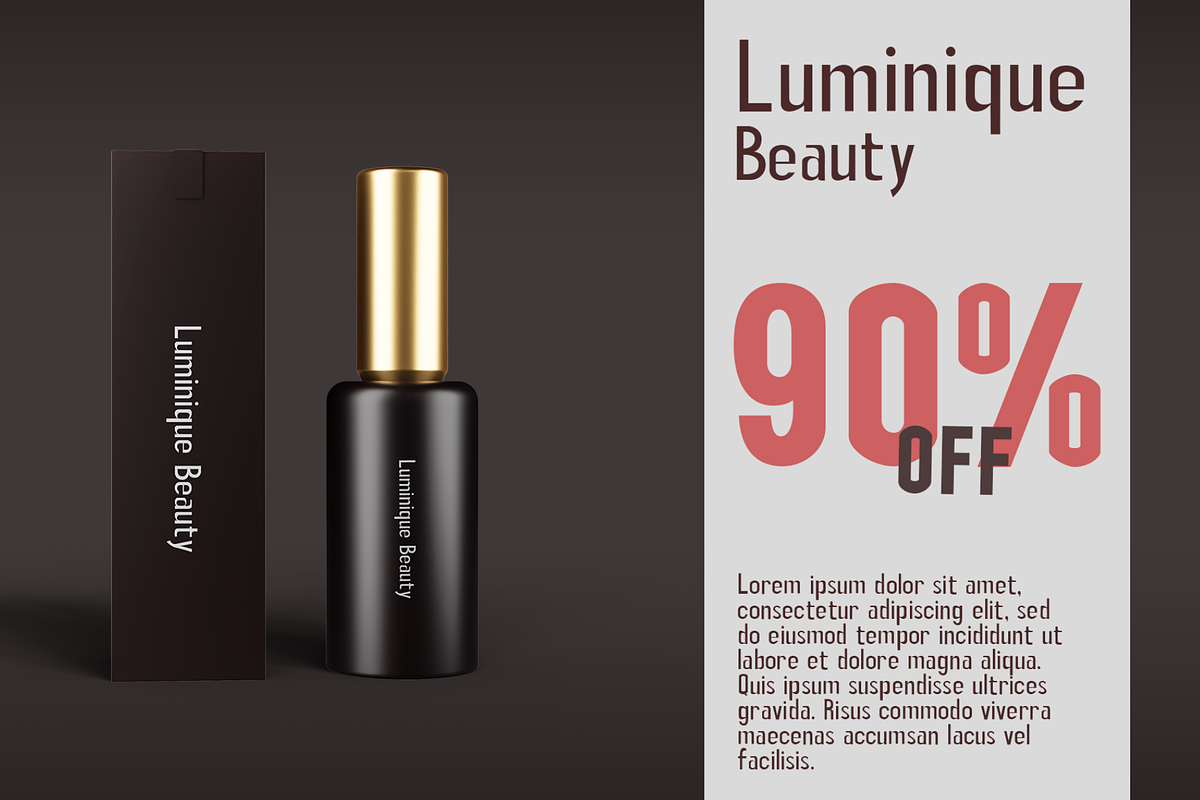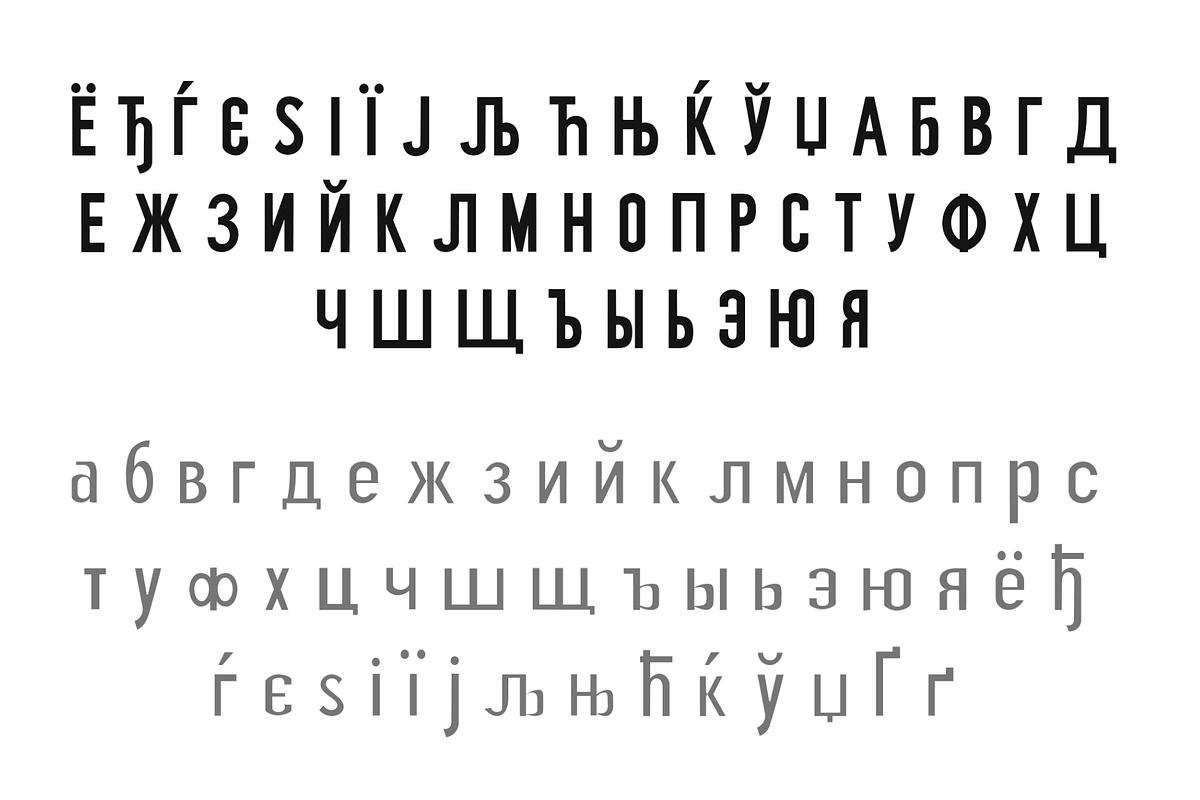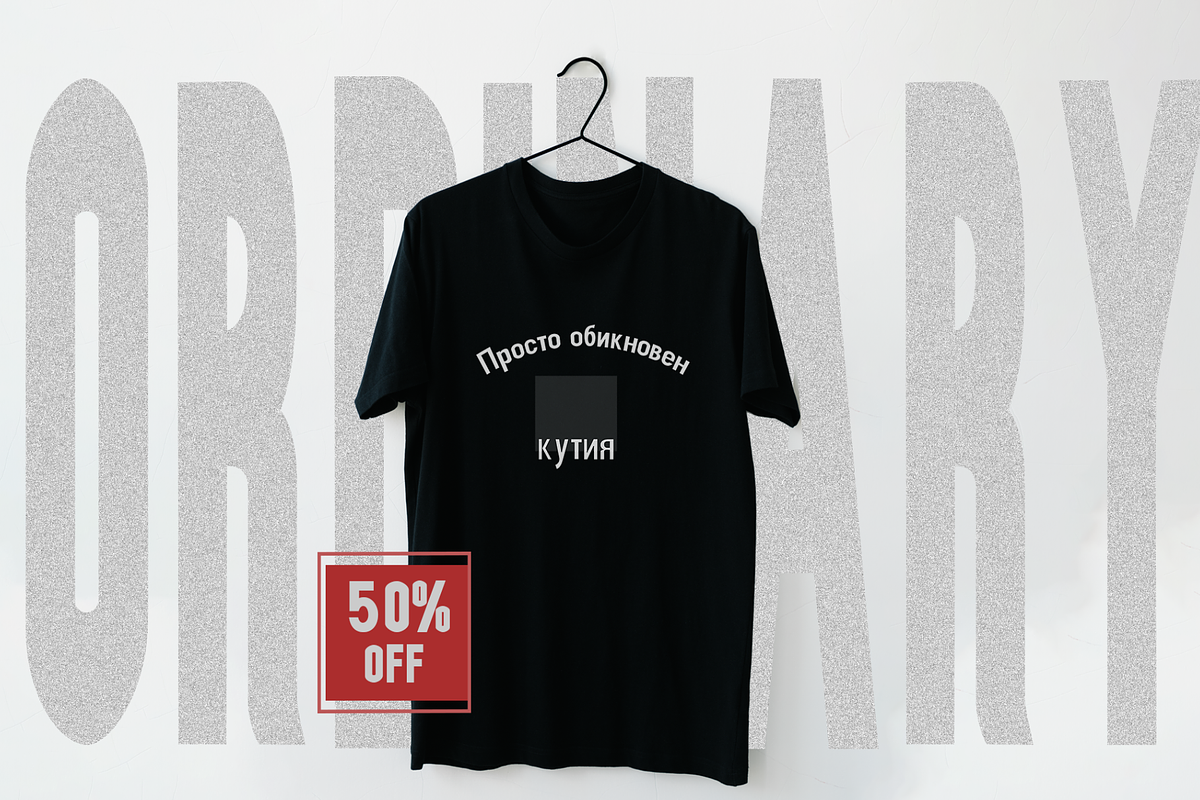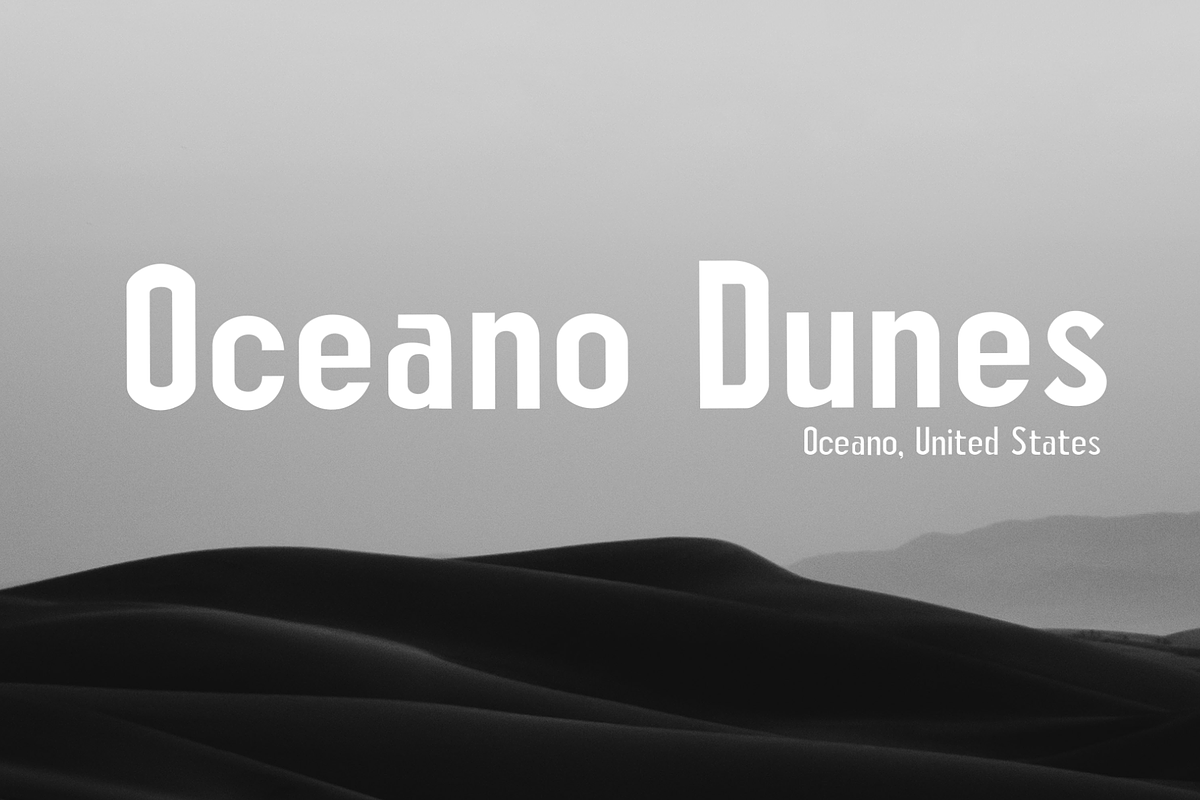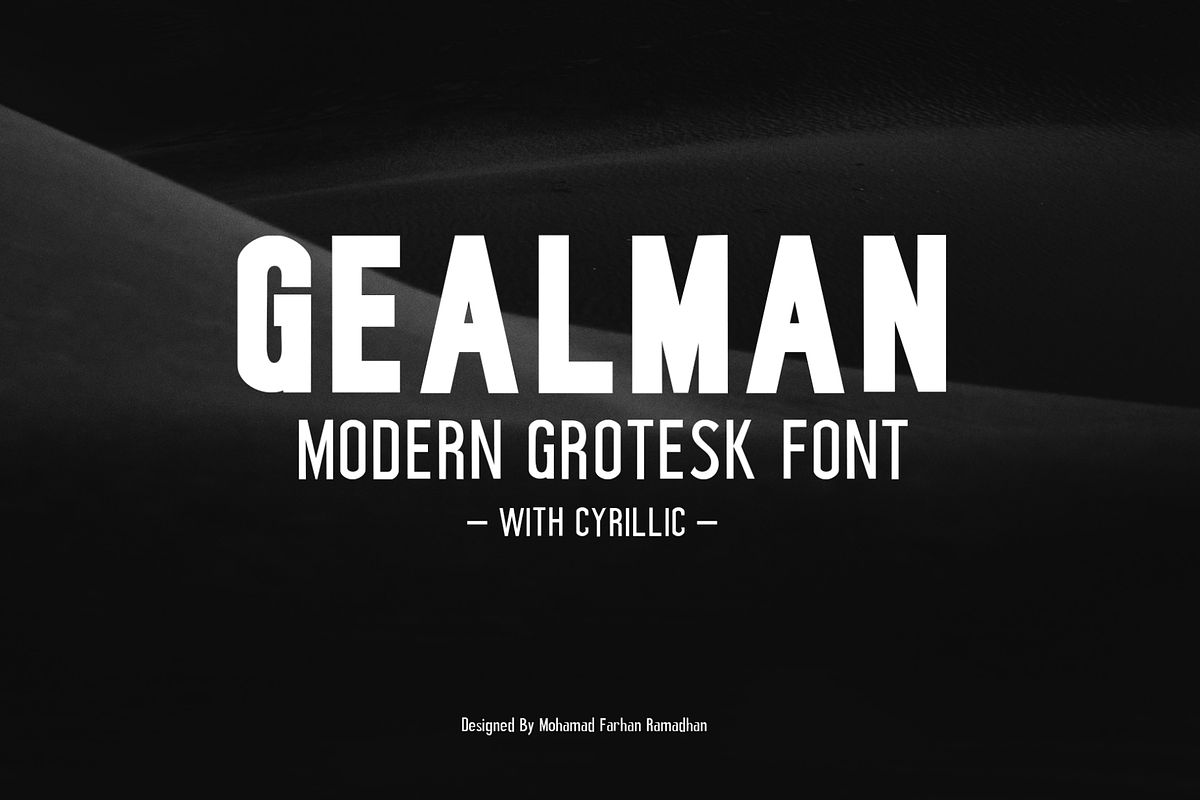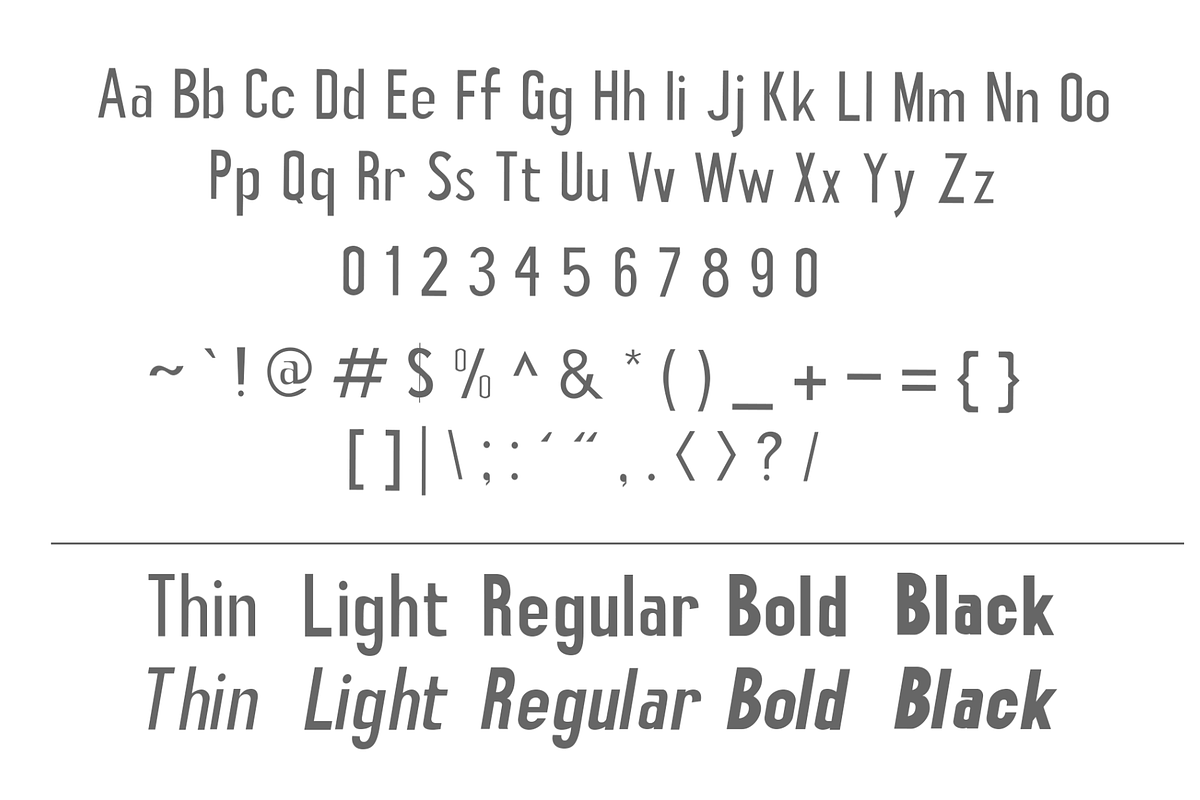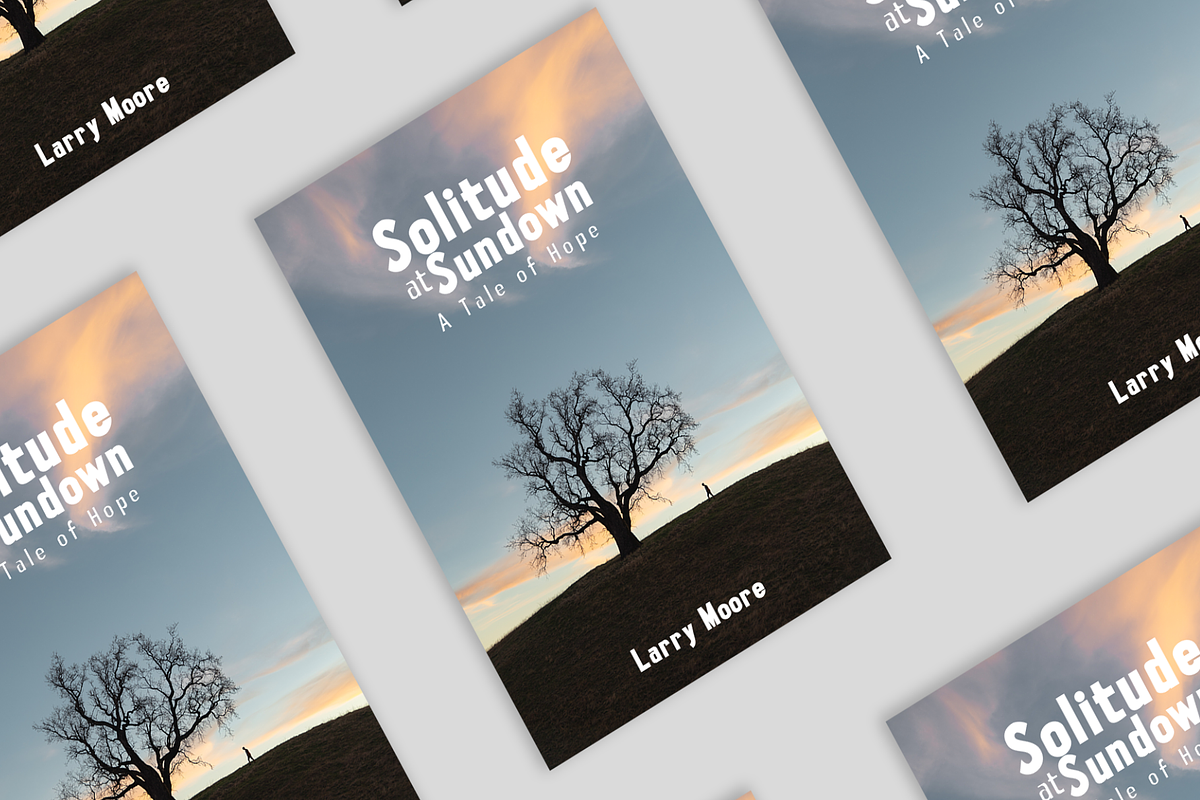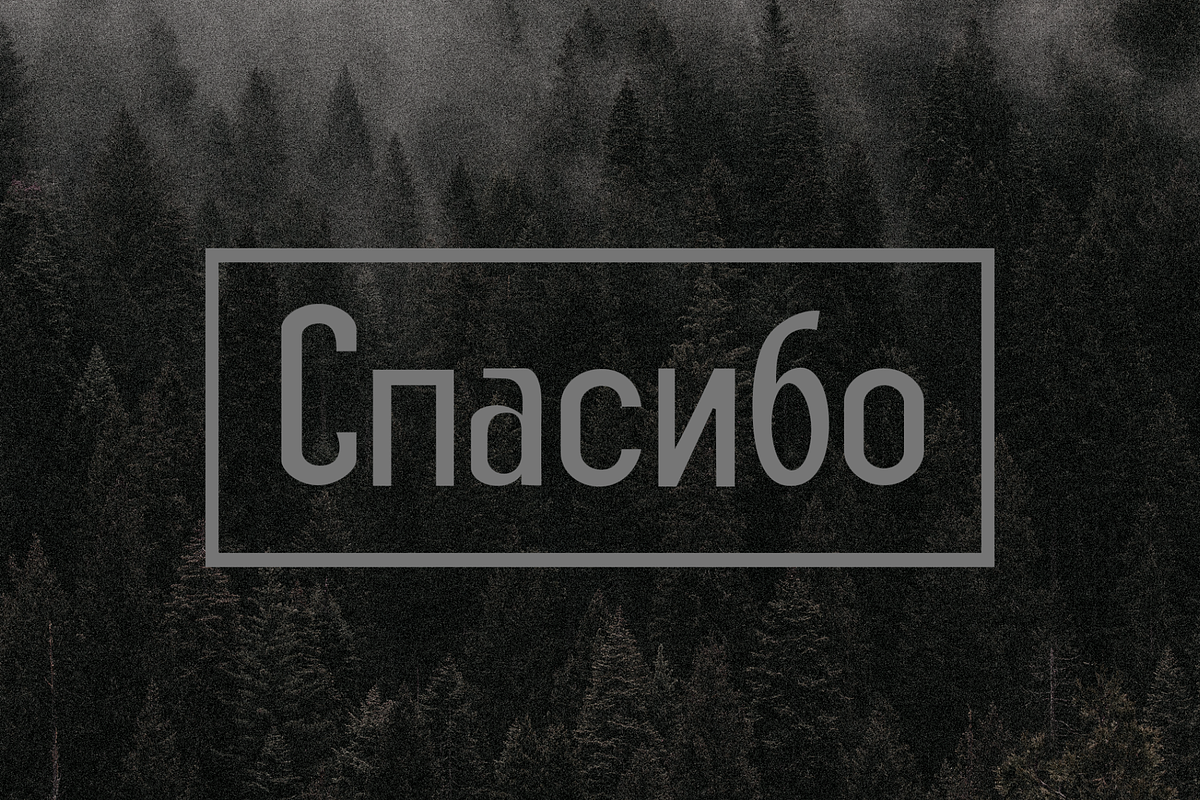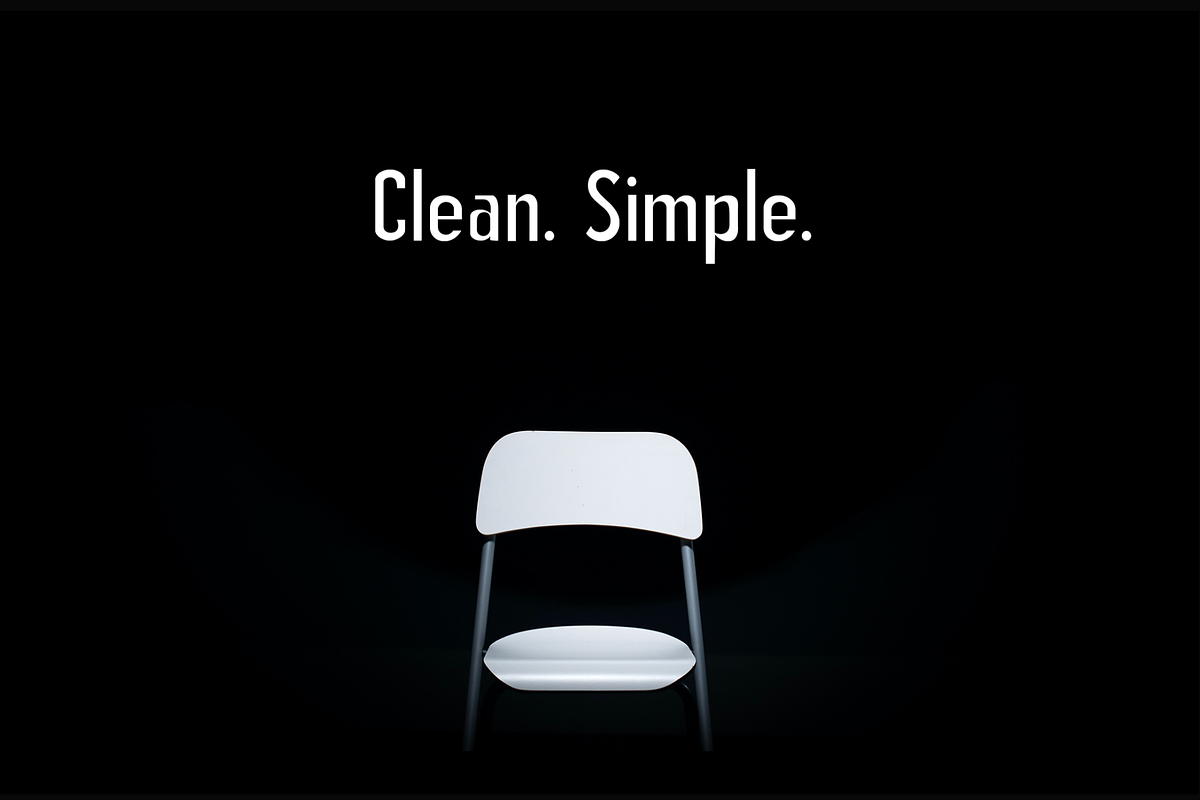
Gealman Modern Groteska font
Gealman is a Grotesk font that stands out for its simplicity, cleanliness, and rigidity. It delivers a modern look and a touch of elegance to any design project, making it highly versatile. Gealman is great for posters, marketing materials, logotypes, headlines, and more. It pairs perfectly with script, blackletter, stylized, and other fonts.
Gealman offers a range of functional aspects, including various styles and character sets. It features a robust character set that supports multiple languages, making it an excellent choice for global branding projects.
The design concept behind Gealman was to create a timeless typeface that is both contemporary and classic. The font's sleek, clean lines and geometric shapes give it a modern feel, while its classic proportions provide a timeless elegance.
Gealman is unique because it combines simplicity with elegance, making it perfect for a wide range of design applications. Whether you're creating a logotype or designing a poster, Gealman is a versatile and reliable choice.
Gealman is not based on a historical design or a revival, but it draws inspiration from classic geometric sans-serif typefaces. Its design is rooted in the concept of precision and balance, which gives it a clean and timeless aesthetic.